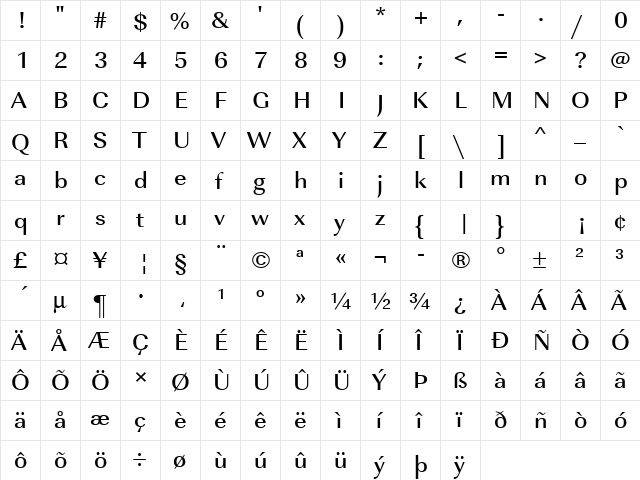
URWImperialTMedWid Regular Font Preview
URWImperialTMedWid Regular
Design Context for URWImperialTMedWid Typeface
URWImperialTMedWid is a composed and adaptable typeface that performs quietly and consistently across a wide range of design contexts.